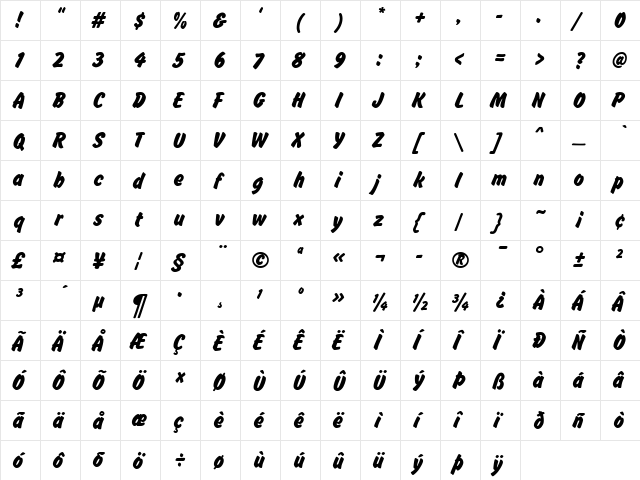
Brush Hand New Regular
| Foundry | 頲013 K-Type |
| Designer | Keith Bates / anonymous / Edwin W. Shaar |
| Copyright | 013 https://www.k-type.com Brush Hand New is a redrawing of Brush Hand, a 1990s font that improved Flash Bold by smoothing, lightening the weight and increasing legibility. The New version refines the outlines, spacing, kerning and adds characters. |
Design Context for Brush Hand New Typeface
Brush Hand New brings a calligraphic fluidity to the page — its connecting strokes and expressive curves give it an unmistakably human quality.
Font Pairing: Combine Brush Hand New with a simple geometric sans for maximum contrast — the tension between flowing curves and clean structure is a classic typographic pairing.